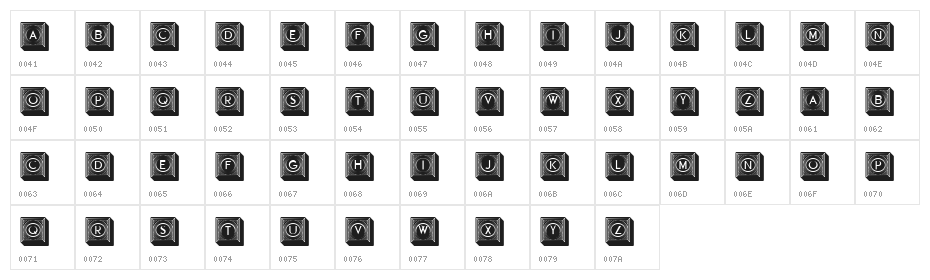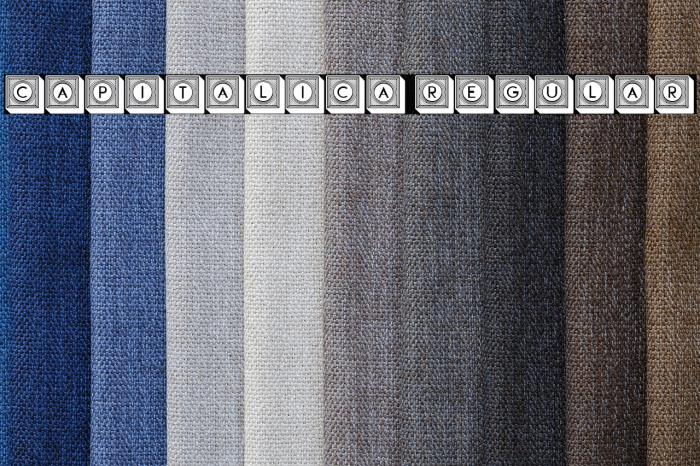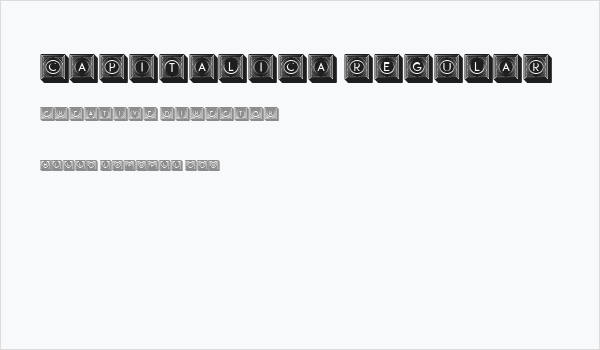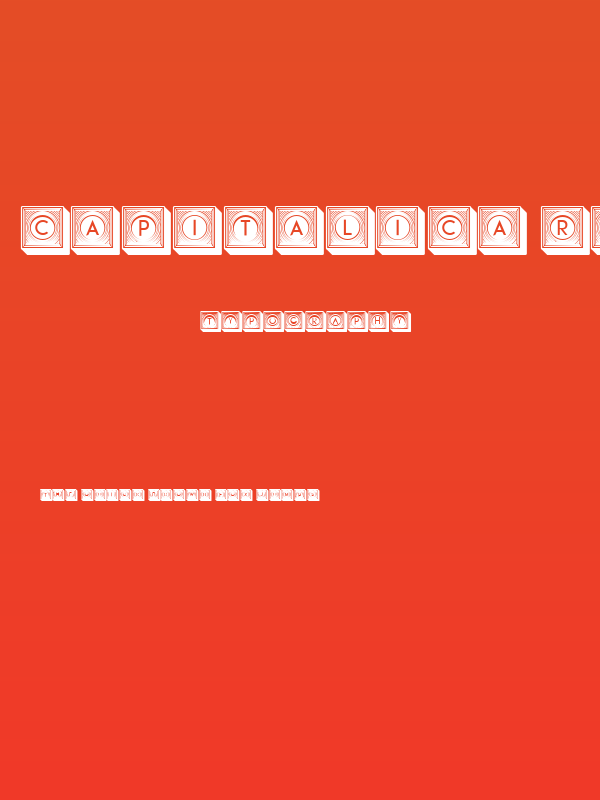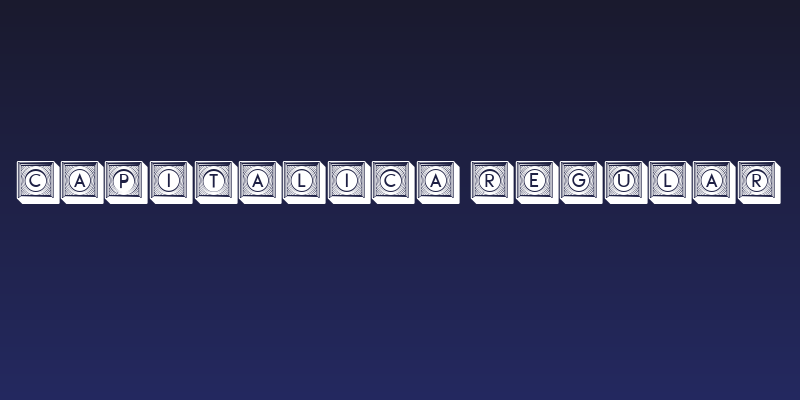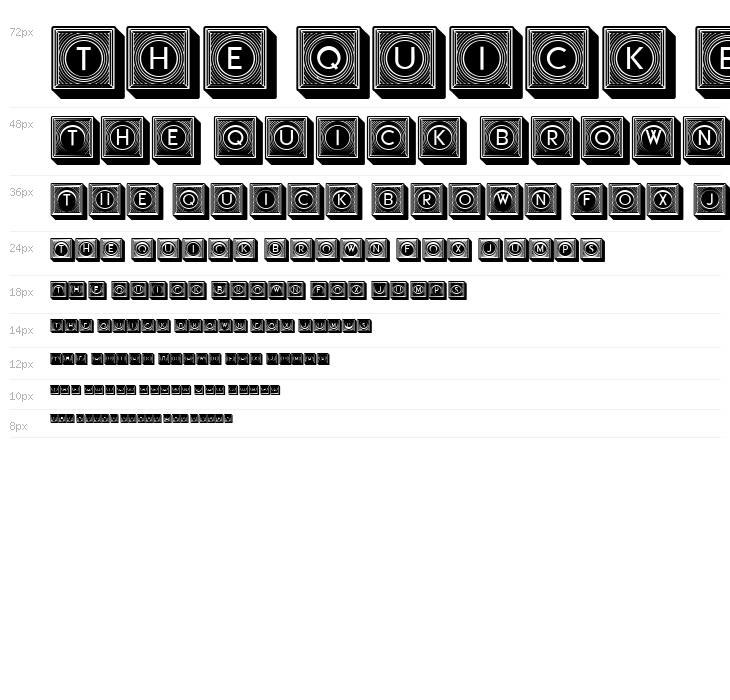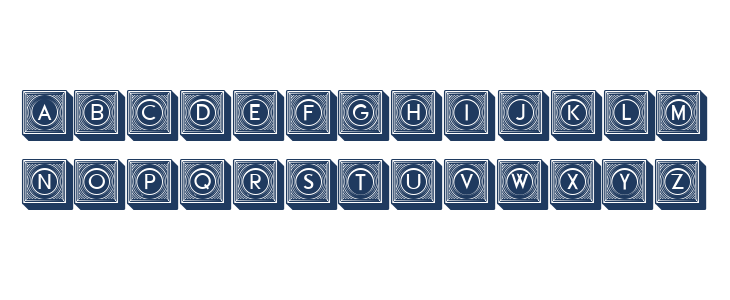
Capitalica Regular Font
Capitalica Regular Description
This font features a bold and striking design with each letter encapsulated in a three-dimensional, cube-like structure. The letters are uppercase and exhibit a geometric style, with clean lines and sharp angles. The 3D effect is achieved through layered outlines that create a sense of depth and dimension, making the letters appear as if they are popping out of the page. The overall aesthetic is modern and eye-catching, suitable for projects that require a strong visual impact. The uniformity of the design ensures consistency across all characters, enhancing readability while maintaining a unique and artistic flair.
| Proposed Projects | Ideal for posters, logos, headlines, and any design requiring a bold, modern look. |